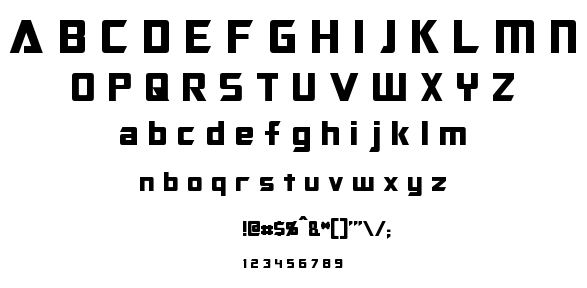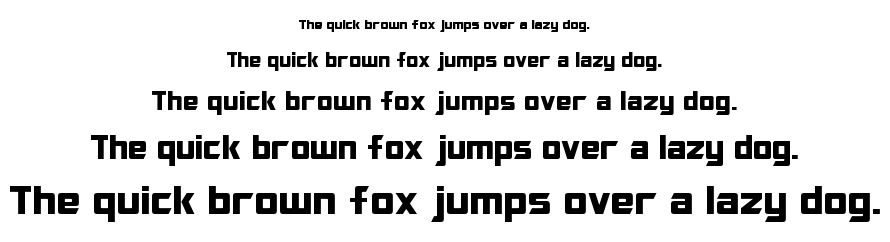
TTF – Optimus
Replaces “Transformers”, which will no longer be supported. A vastly improved character set with a lot of glyph cleanup. Does NOT include the Autobot and Decepticon symbols.
Reworked the glyphs to be more ‘toy accurate’ from the original packaging. Adds euro and accent glyphs.